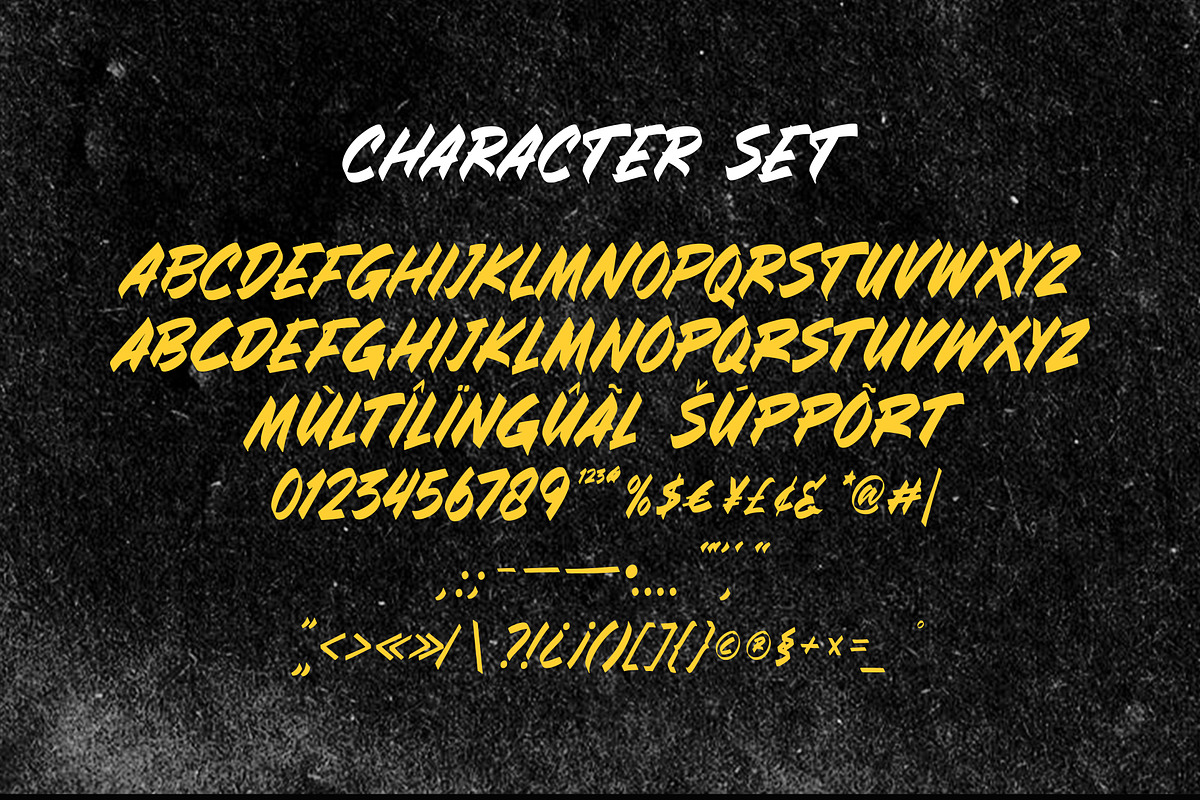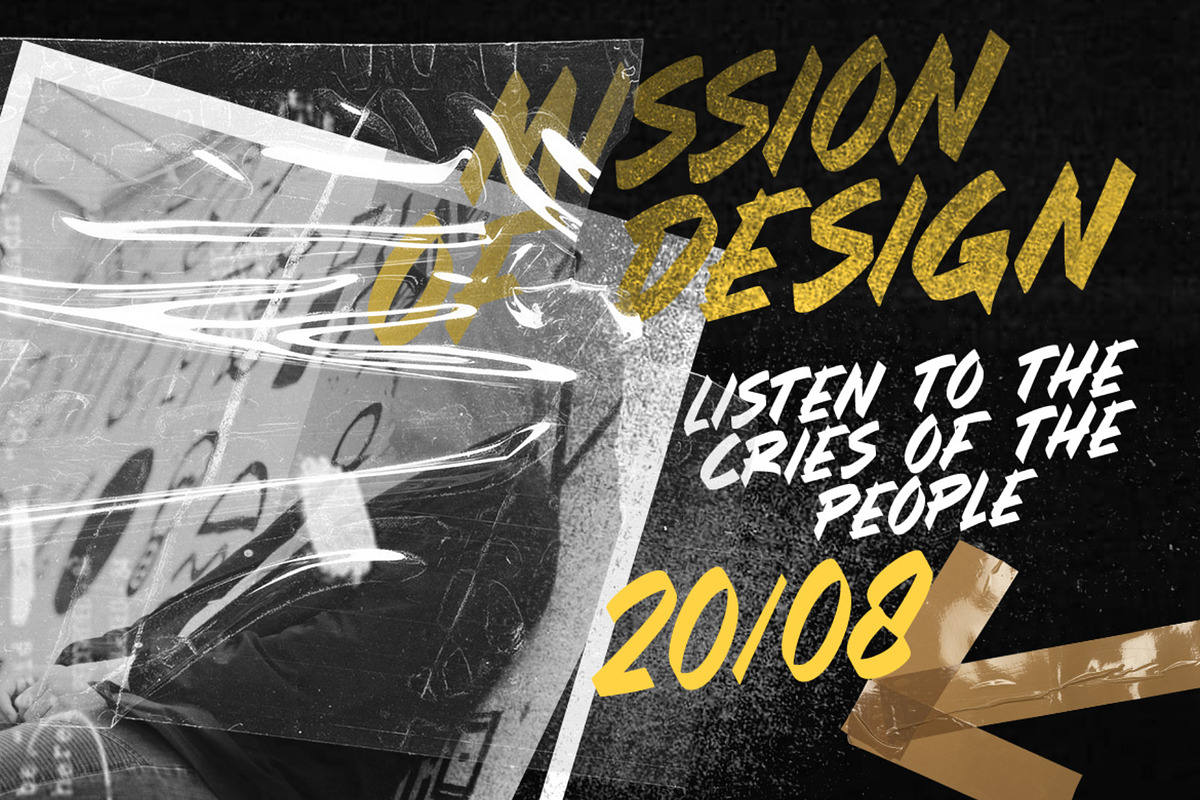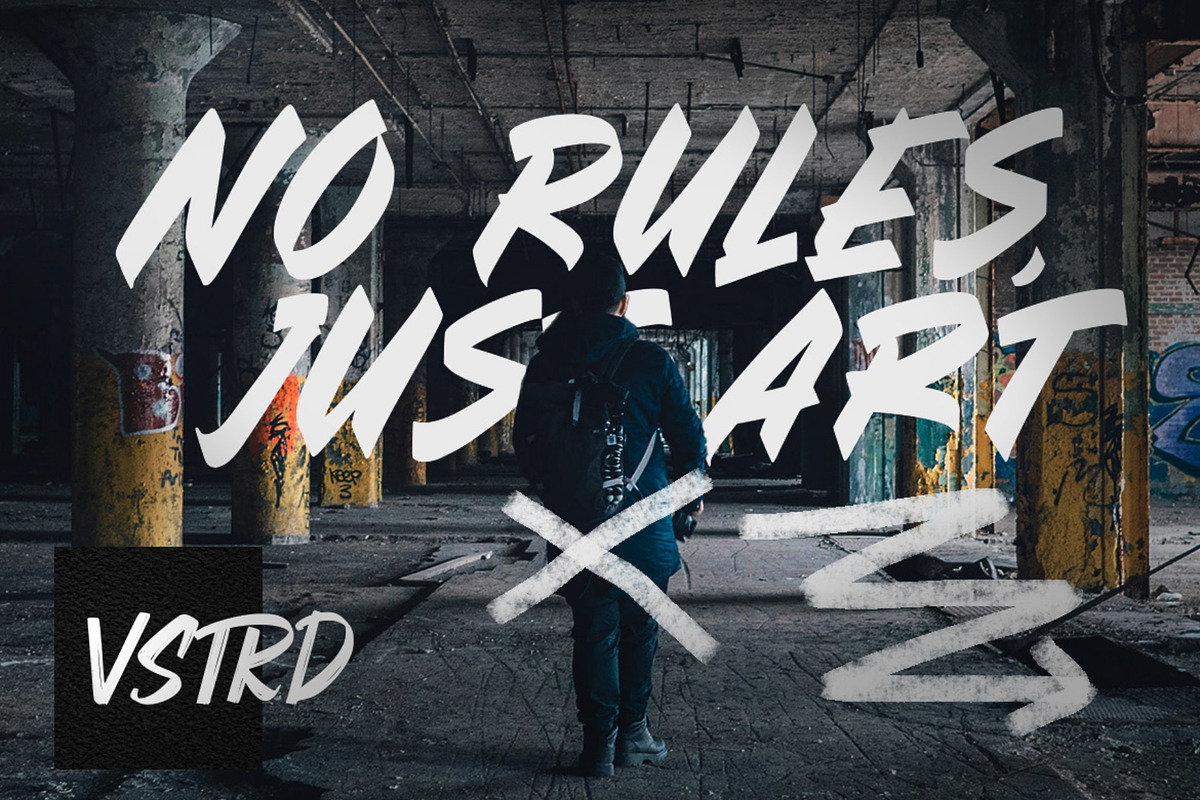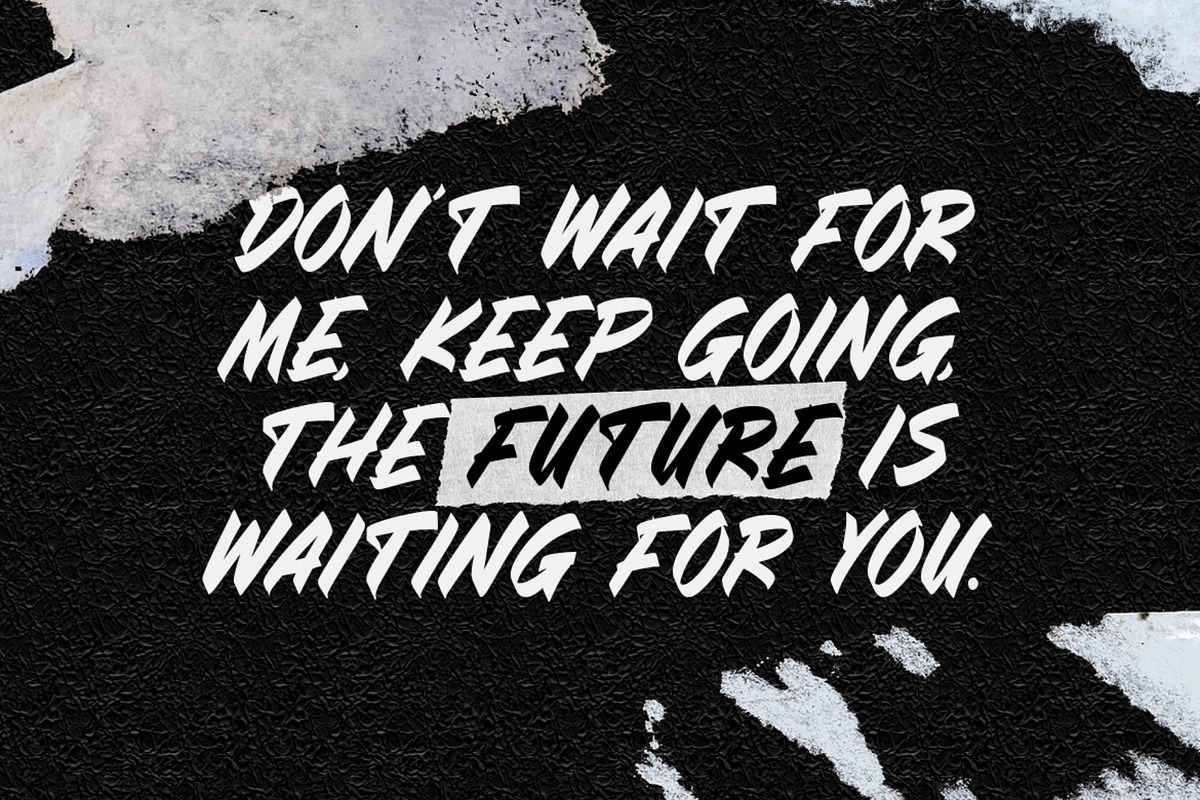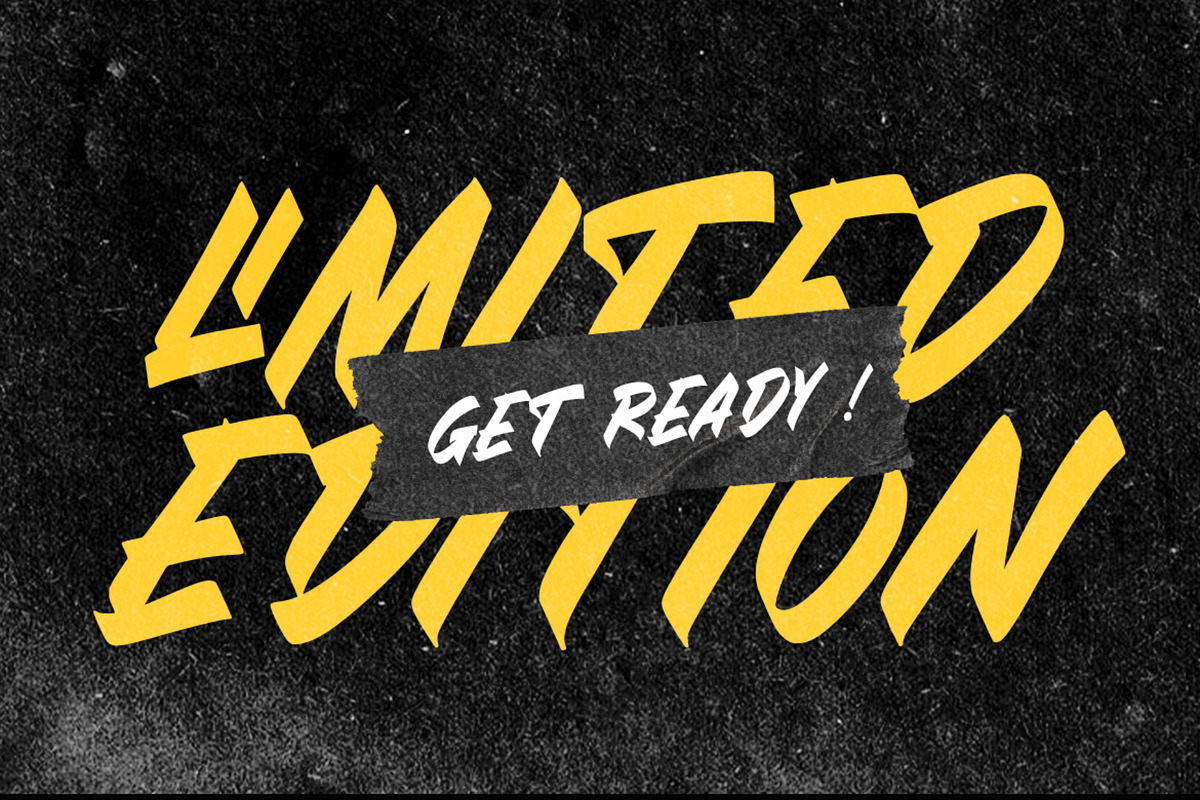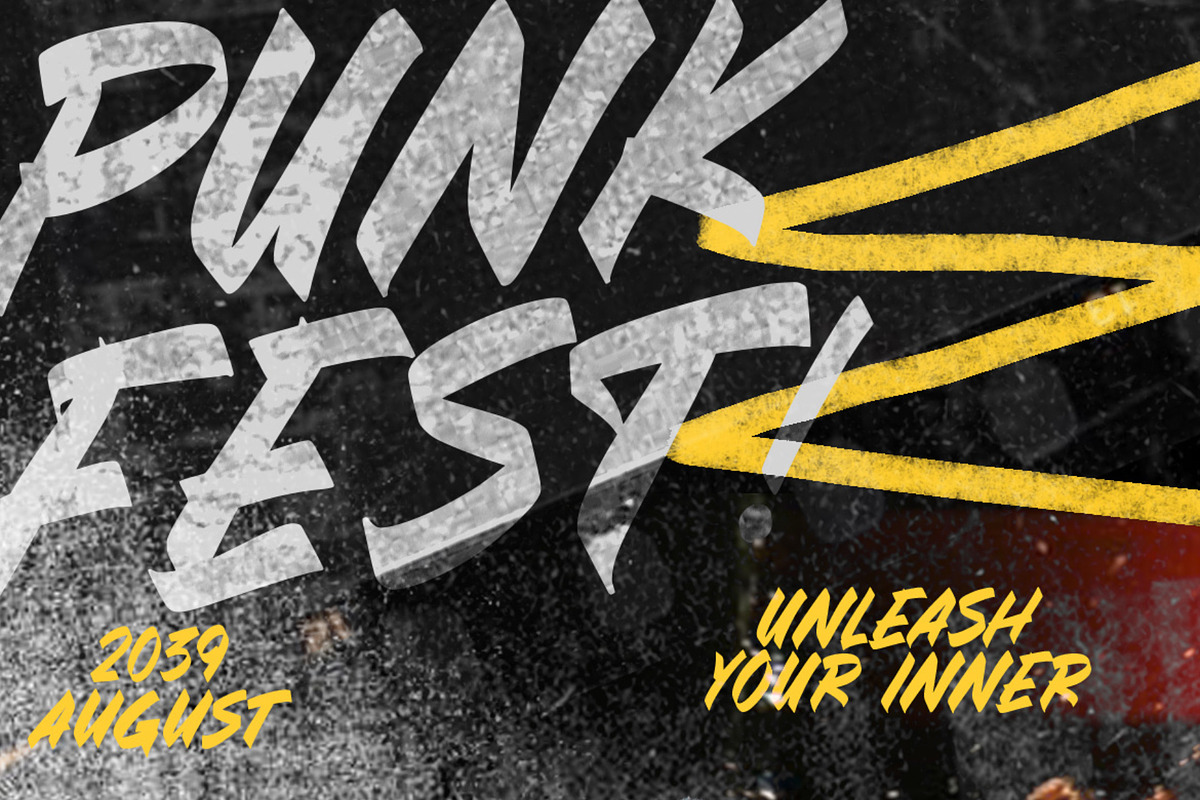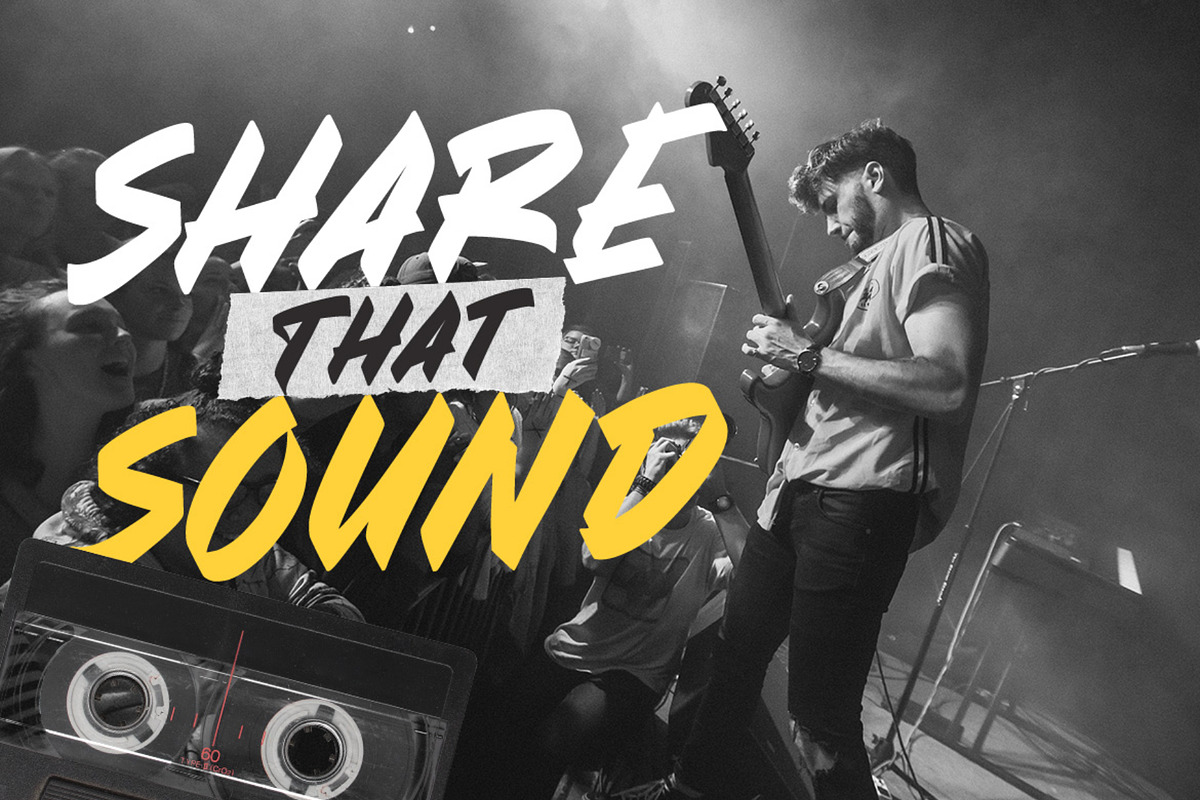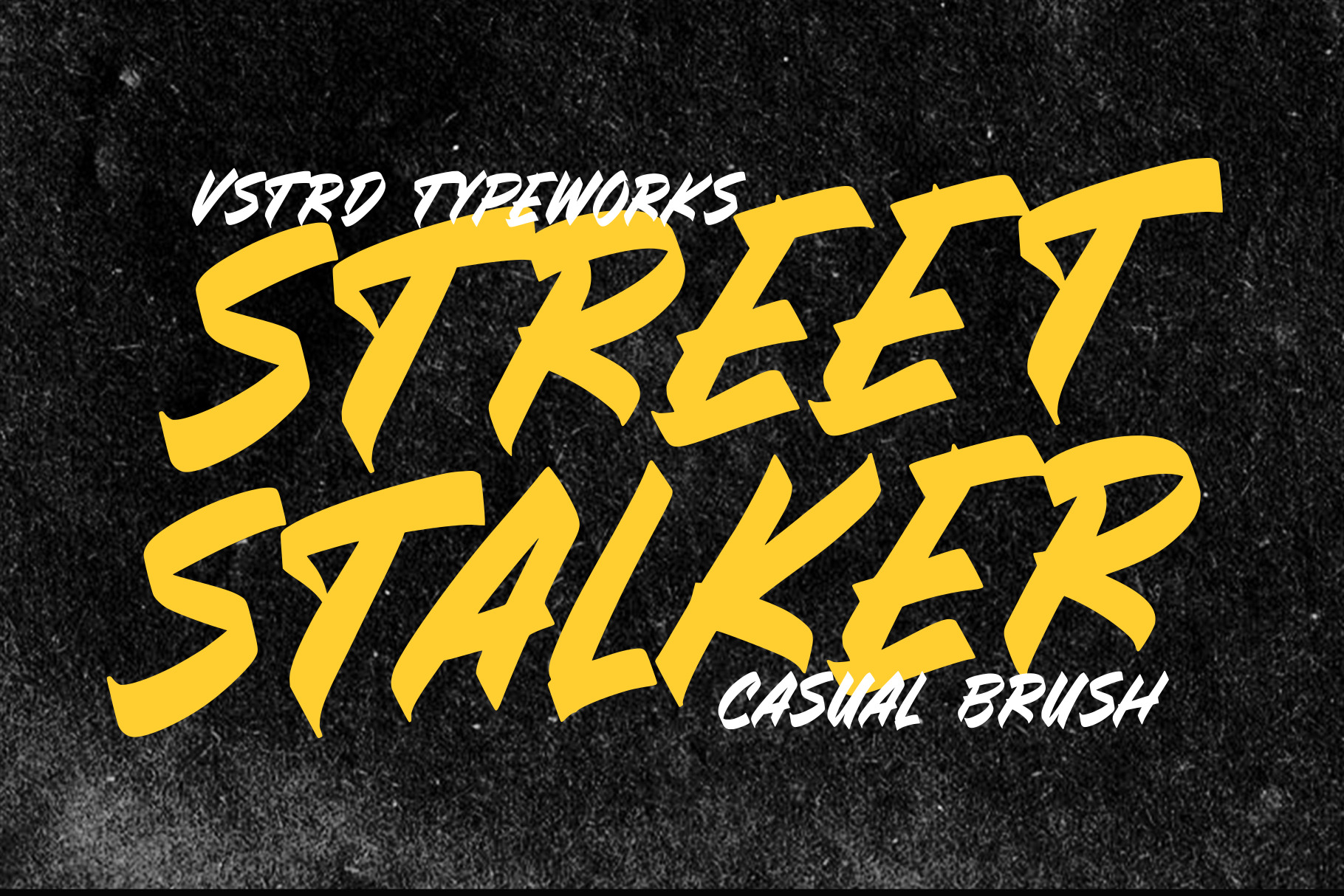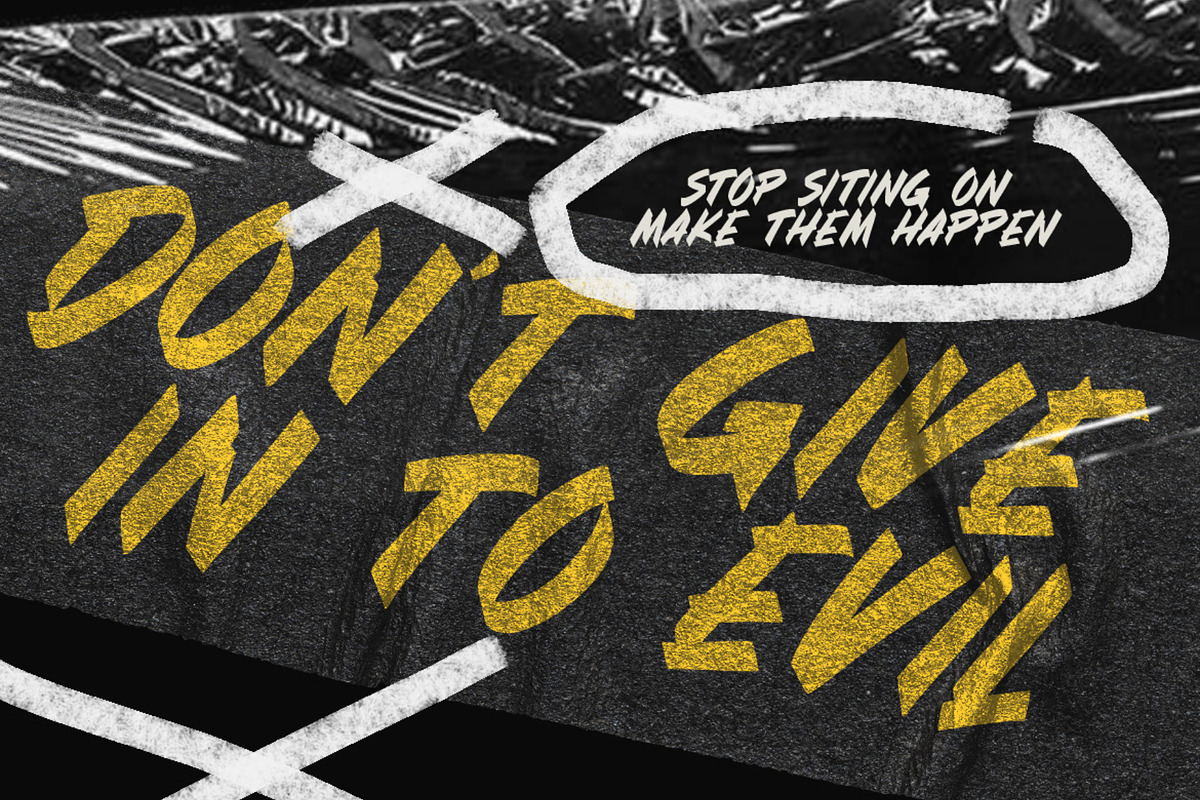
Street Stalker - Casual Brush Font
Unleash raw energy with Street Stalker – Casual Brush Font. Inspired by urban culture, underground music, and bold street expression, this brush typeface delivers an unapologetic attitude in every stroke. Rough, dynamic, and full of movement, Street Stalker captures the authentic feel of hand-painted lettering straight from the city walls. Perfect for posters, album covers, social media graphics, and bold editorial headlines, this font brings intensity and edge to your designs. Its natural brush texture adds grit and personality, making every word feel alive and unstoppable. Loud. Fearless. Unfiltered. Street Stalker is not just a font — it’s a statement.
- All Caps Uppercase & Lowercase